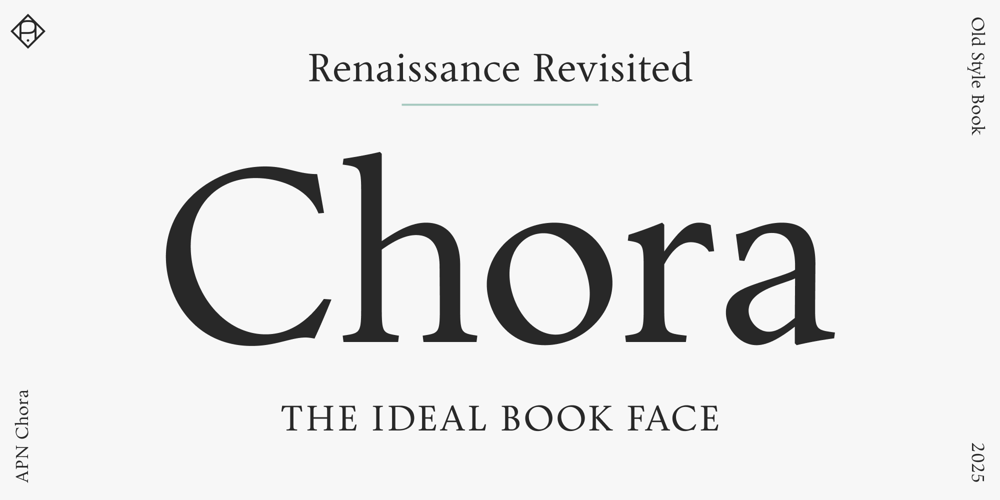
APN Chora
APN Chora font
APN Chora Font Family was designed by Patrick Nell and published by Alphabets Patrick Nell. APN Chora contains 2 styles and family package options. APN Chora is a contemporary humanist typeface expertly crafted for optimal legibility in books and editorial design, as well as for extended reading on screens. Available in only two styles—roman and italic—both finely tuned to each other and fully equipped for all needs of refined typography.APN Chora offers small caps, ligatures, multiple figure and stylistic sets, alternative glyphs, fractions, mathematical symbols, and arrows. It supports a wide range of languages, including all European languages written in the Latin script. With its rationalized Renaissance construction, the typeface features a pronounced humanist axis, generous x-height, and balanced contrast between thin and thick strokes. While optimized for extended reading, its austere elegance also suits display use.A Humanist TypefaceAmong the most legible letterforms in typography, old-style typefaces also stand as some of the earliest designs. Emerging in the second half of the 1400s, Venetian printers crafted types that abandoned Gutenberg’s dense blackletter approach, drawing instead upon the flowing Renaissance calligraphy for their minuscules and the timeless grandeur of the roman imperial inscriptions for their capitals.APN Chora is inspired by this typographic heritage without directly referencing any single historical model. It is a contemporary humanist roman with an accompanying italic, capturing Venetian, Aldine, and Dutch characteristics, further rationalized and interpreted from a 21st-century perspective.A Leitmotiv in the development of APN Chora was the idea of the cyclical, the recurring—the Chorus. This principle is particularly evident to the Viennese type designer, especially through the surrounding architecture of this city. The Renaissance reflected on ancient forms and ideals, and these classical ideals were later revisited and reinterpreted by movements such as Classicism, Historicism (with its Neo-Renaissance style), and, later still, Neoclassicism, often with blurred transitions between them. APN Chora is conceived as an imagined Renaissance typeface, one that could only have been envisioned through the lens of these recurring cycles of influence, so prevalent in both type design and the broader history of art.A Book Typeface—and moreThe working title of APN Chora was Wiener Buchschrift, which translates to Viennese Book Typeface. In keeping with this original concept APN Chora is available in only two styles: the roman and the italic. Both are finely tuned to each other and optimized for use in typical sizes for long-form texts, especially in books, prioritizing legibility with an even, sufficiently dark color and clear, open letterforms, free from any flickering—both on paper and on screen.As with many of its historical inspirations, there are no bold or condensed styles, nor other variations. Instead, typographic contrast can be achieved through the skillful use of the italic, small caps, and, for titling, the inscriptional capitals of APN Chora, with their distinctive Trajanic rhythm of narrow and wide letters–and a beautifully round ‘O’.APN Chora strives to be the most legible of elegant typefaces, and the most elegant of legible typefaces. Consequently, it includes everything you will need for fine book typography. There are small caps, a fine set of (rare) ligatures, multiple figure and stylistic sets, alternative glyphs, fractions, mathematical symbols, and arrows. APN Chora supports a wide range of languages, including all European languages using the Latin script, and offers extensive OpenType features.Among its stylistic sets and alternative forms you will find variants that allow for different flavors and applications. For example, there are capitals with increased width for instances when the traditional Roman proportions don’t fit the context. Or there is an ‘e’ with an angled crossbar to emphasize the humanist element. And, on the other hand, there is an ‘M’ in the style of Francesco Griffo, with a single upper serif, to accentuate the Aldine influence.APN Chora is primarily a book typeface, but it is thoroughly designed, and its inherent qualities do shine in larger sizes. So try APN Chora as a display face for headlines or posters, you will be in for a treat.A Refined TypefaceStylistically, APN Chora is a rationalized old-style typeface, rather than following a transitional or modern model. APN Chora displays an almost geometric regularity, yet it is drawn with grace and possesses enough peculiarities and idiosyncrasies to keep it alive and interesting.Its capitals maintain the distinctive classical proportions and rhythm of narrow and wide letters, with a sculpted round ‘O’ and bracketed serifs that give a column-like appearance, while the minuscules possess angled, calligraphy-influenced head serifs. The lowercase curves exhibit an angular transition int